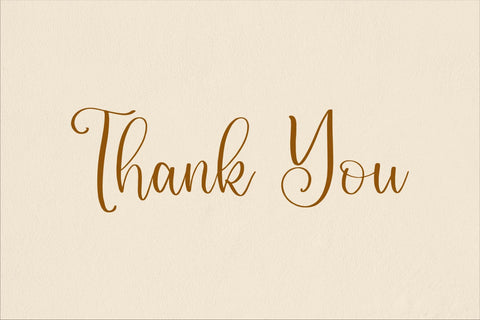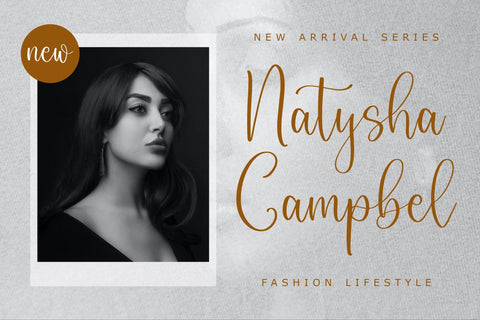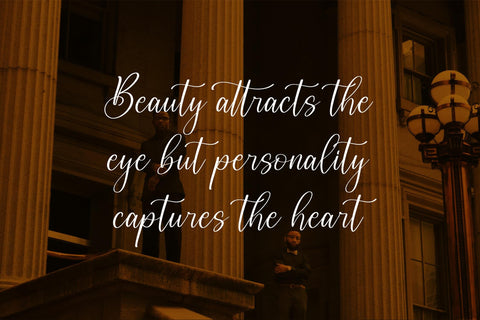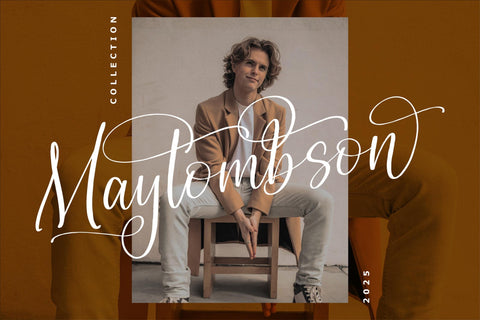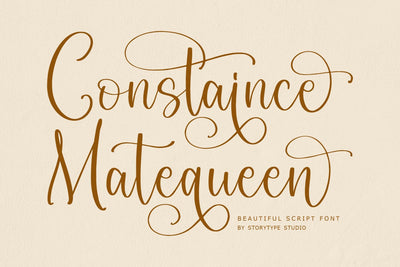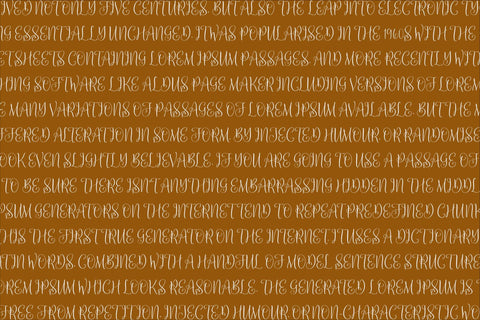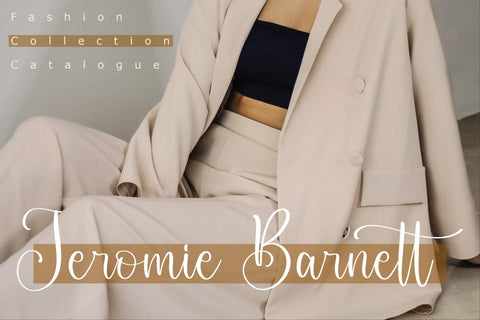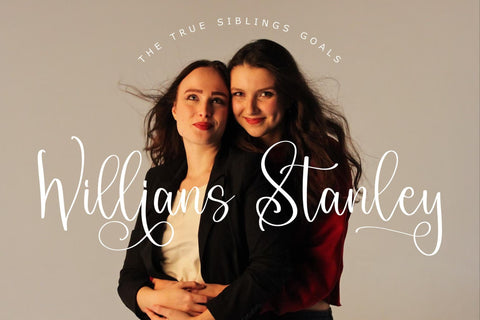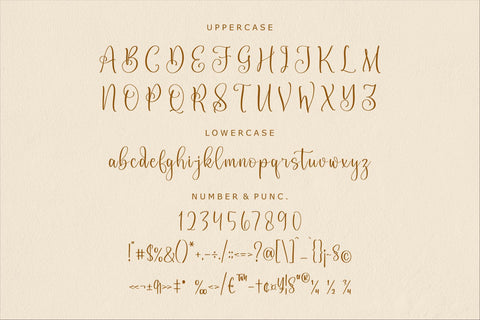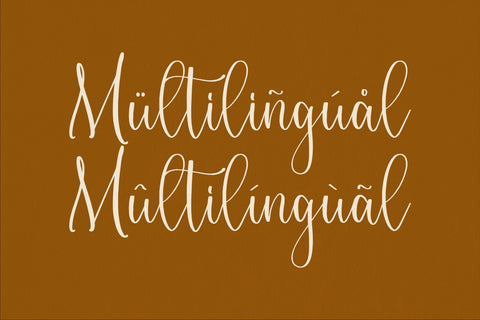
Constaince Matequeen - Beautiful Script Font
Proudly present Constaince Matequeen - Beautiful Script Font , created by Storytype,
A luxury script that has own unique style & modern look.